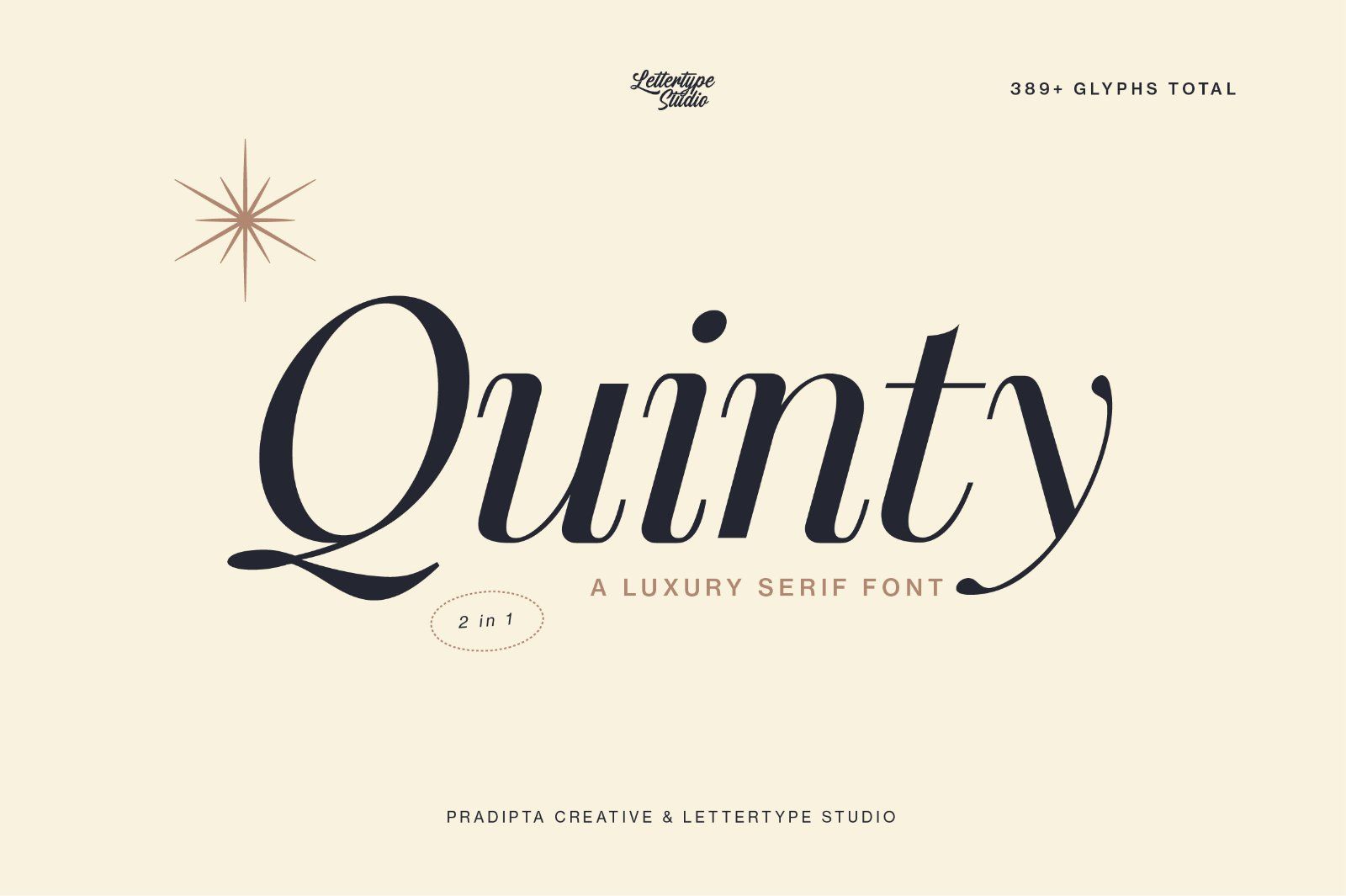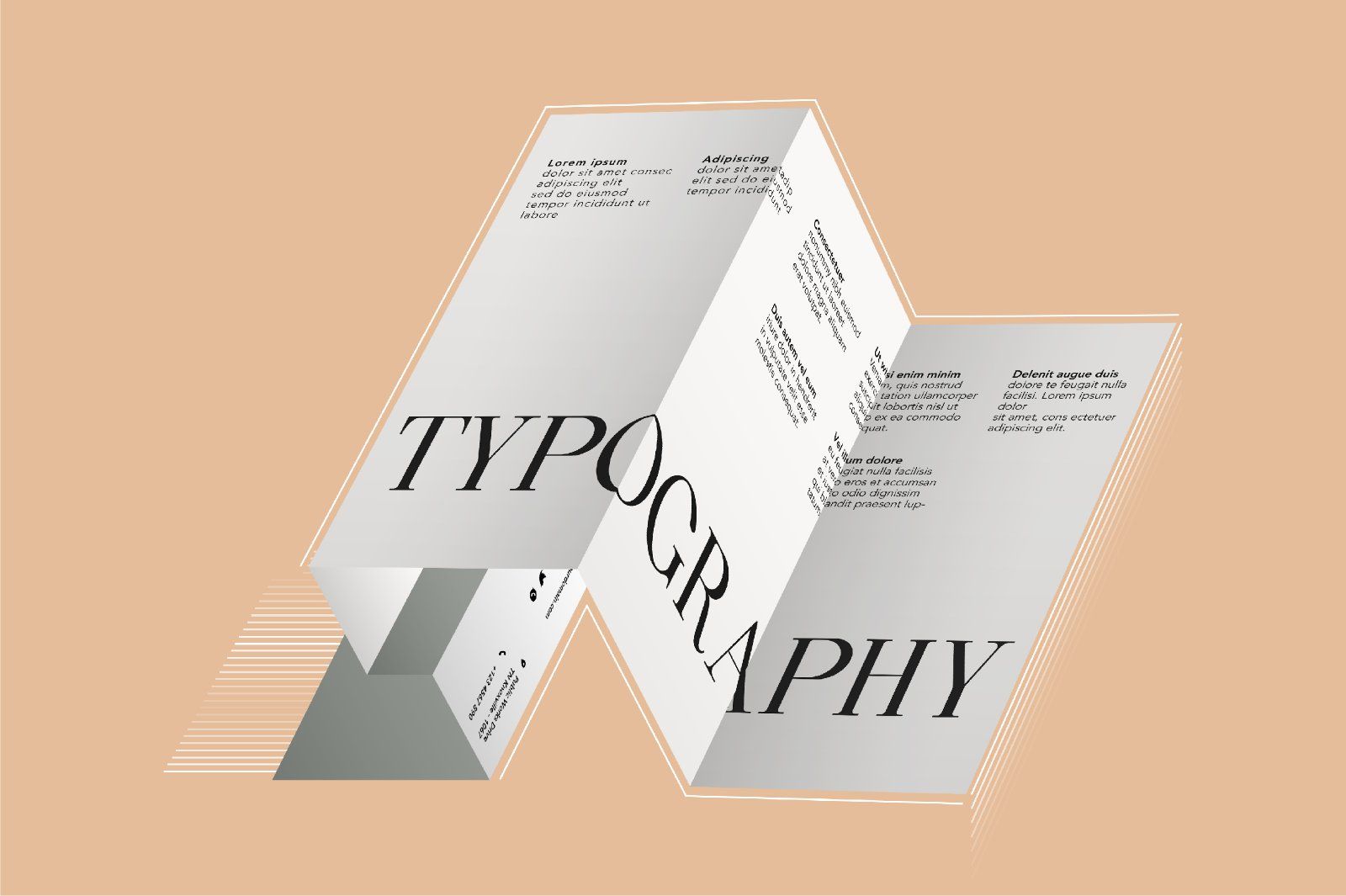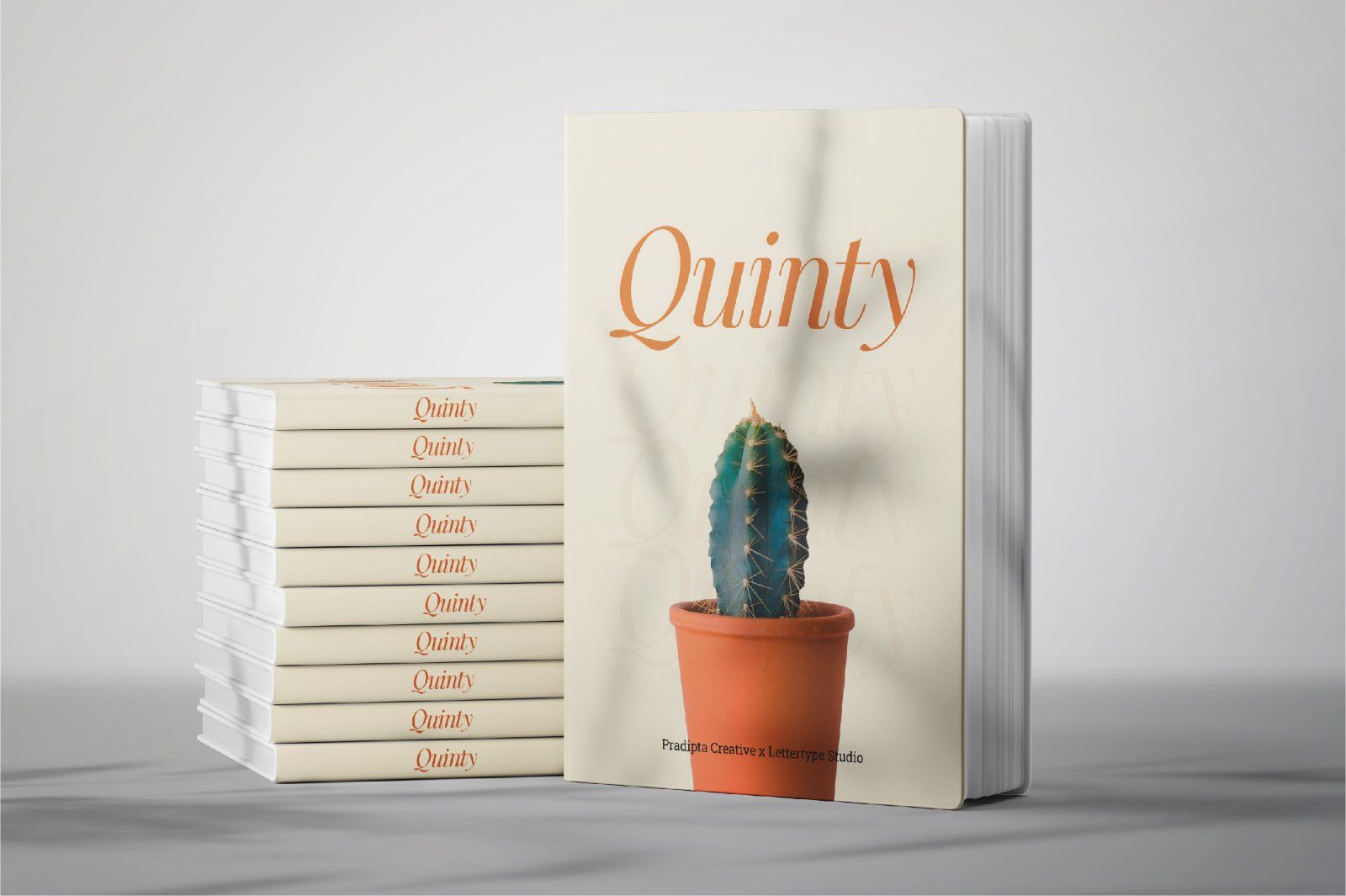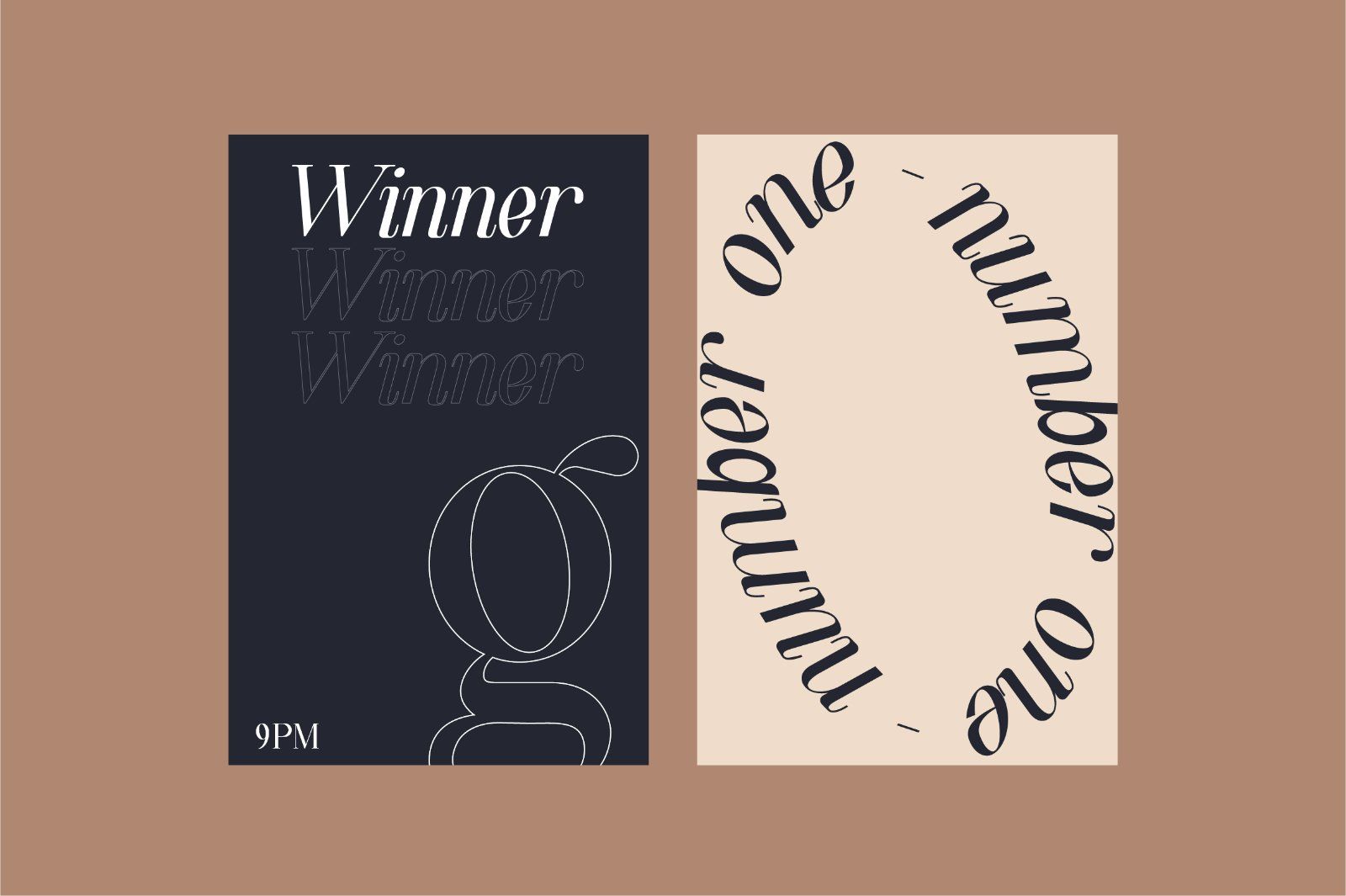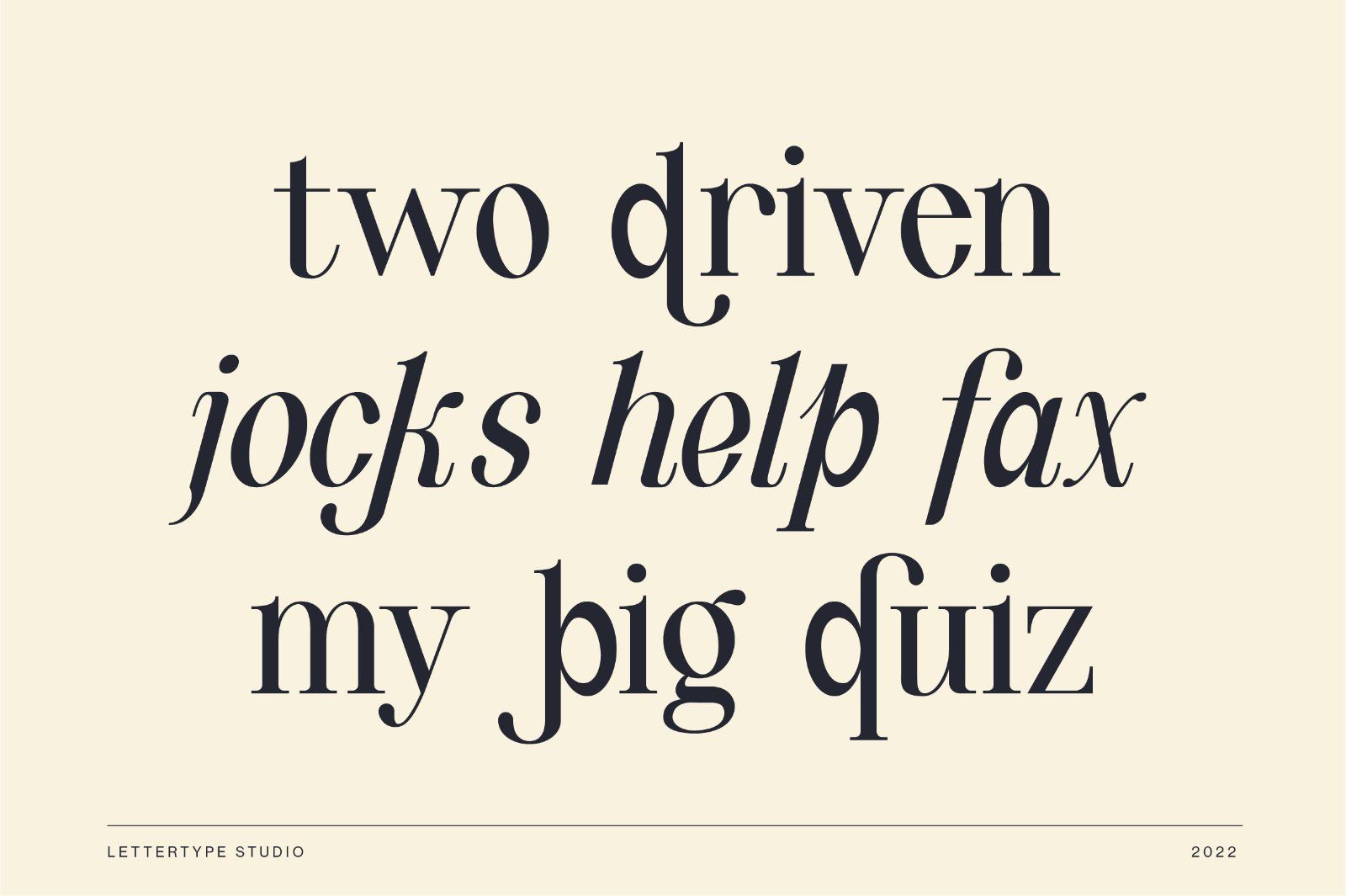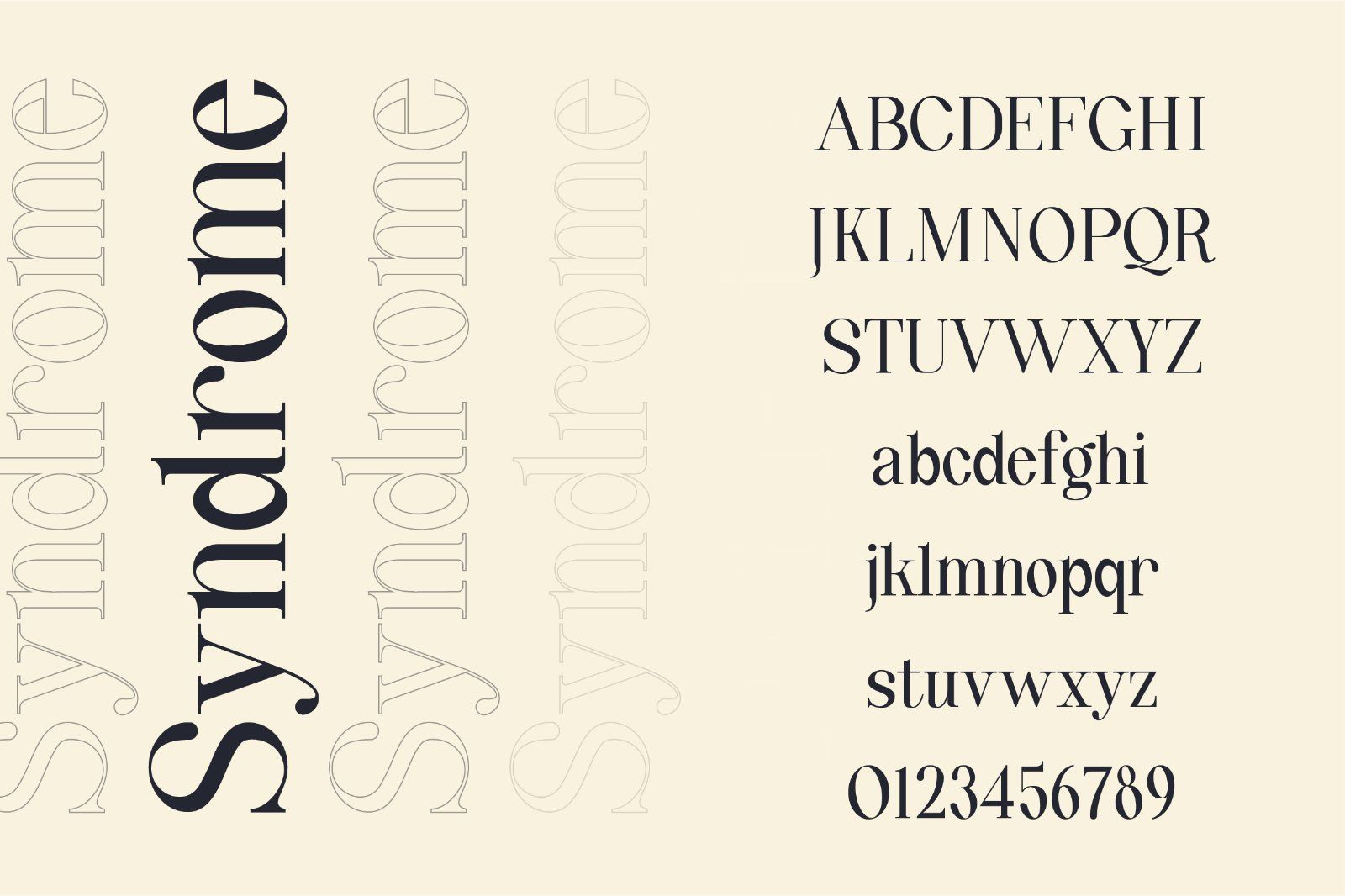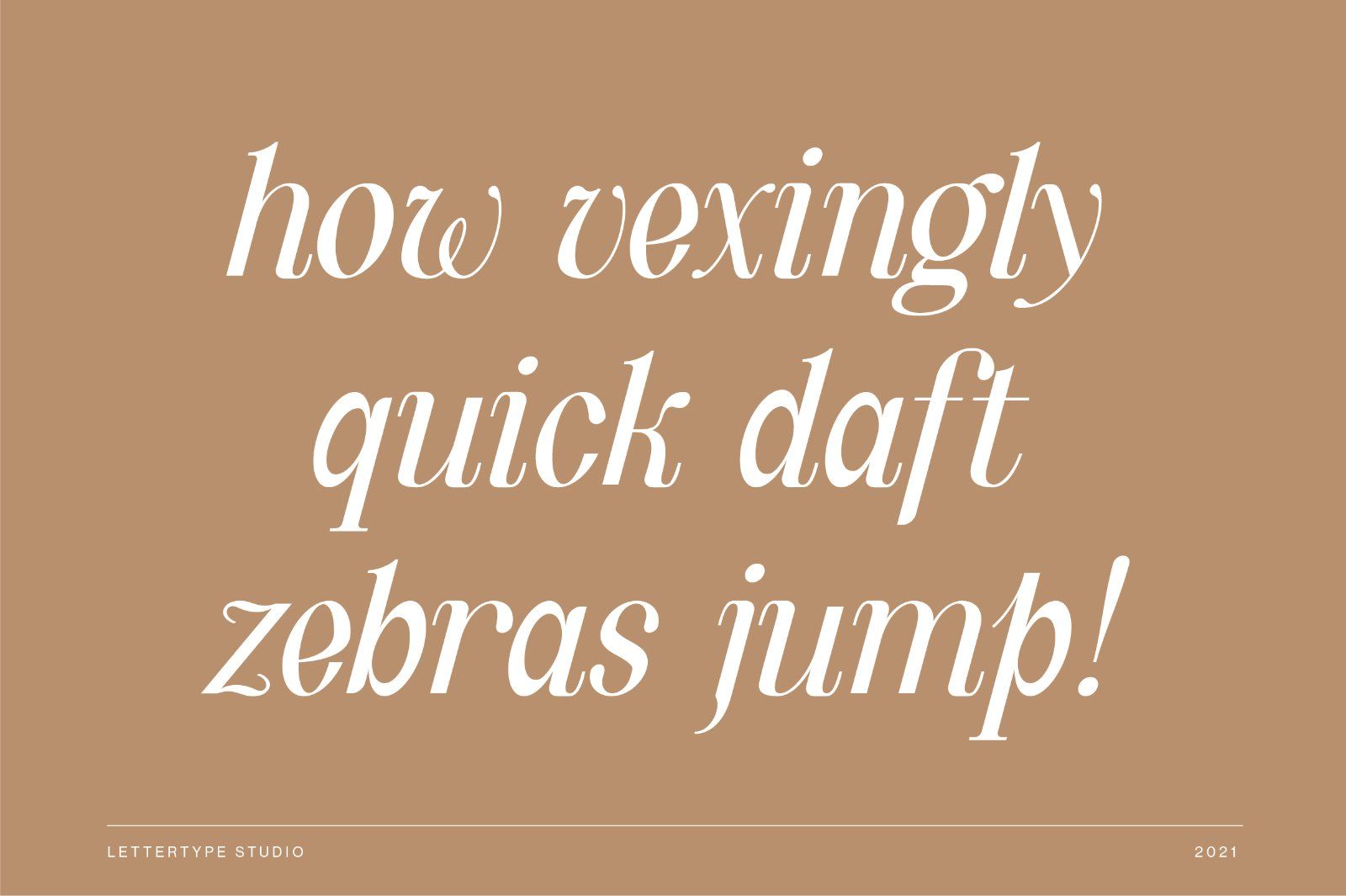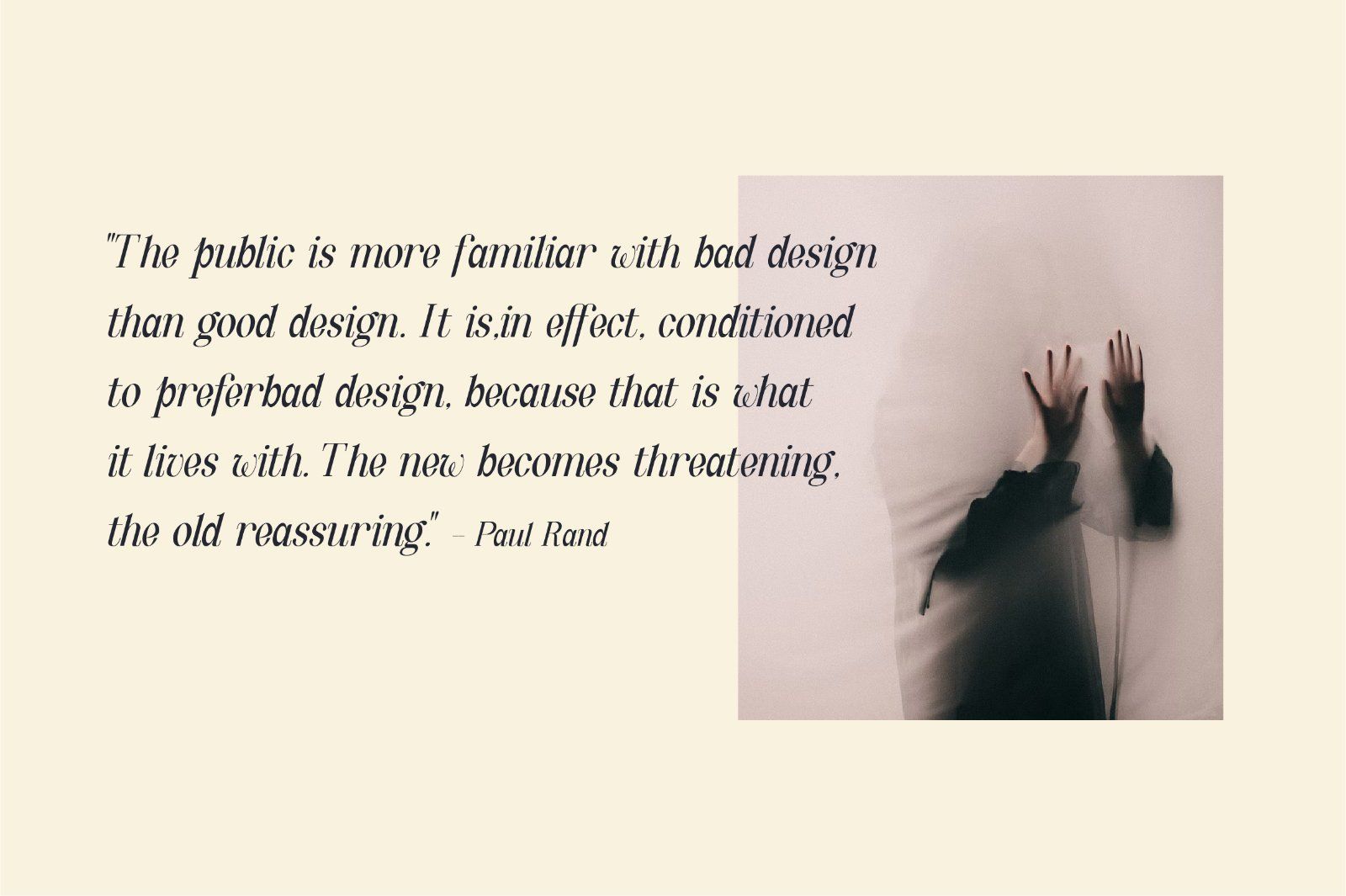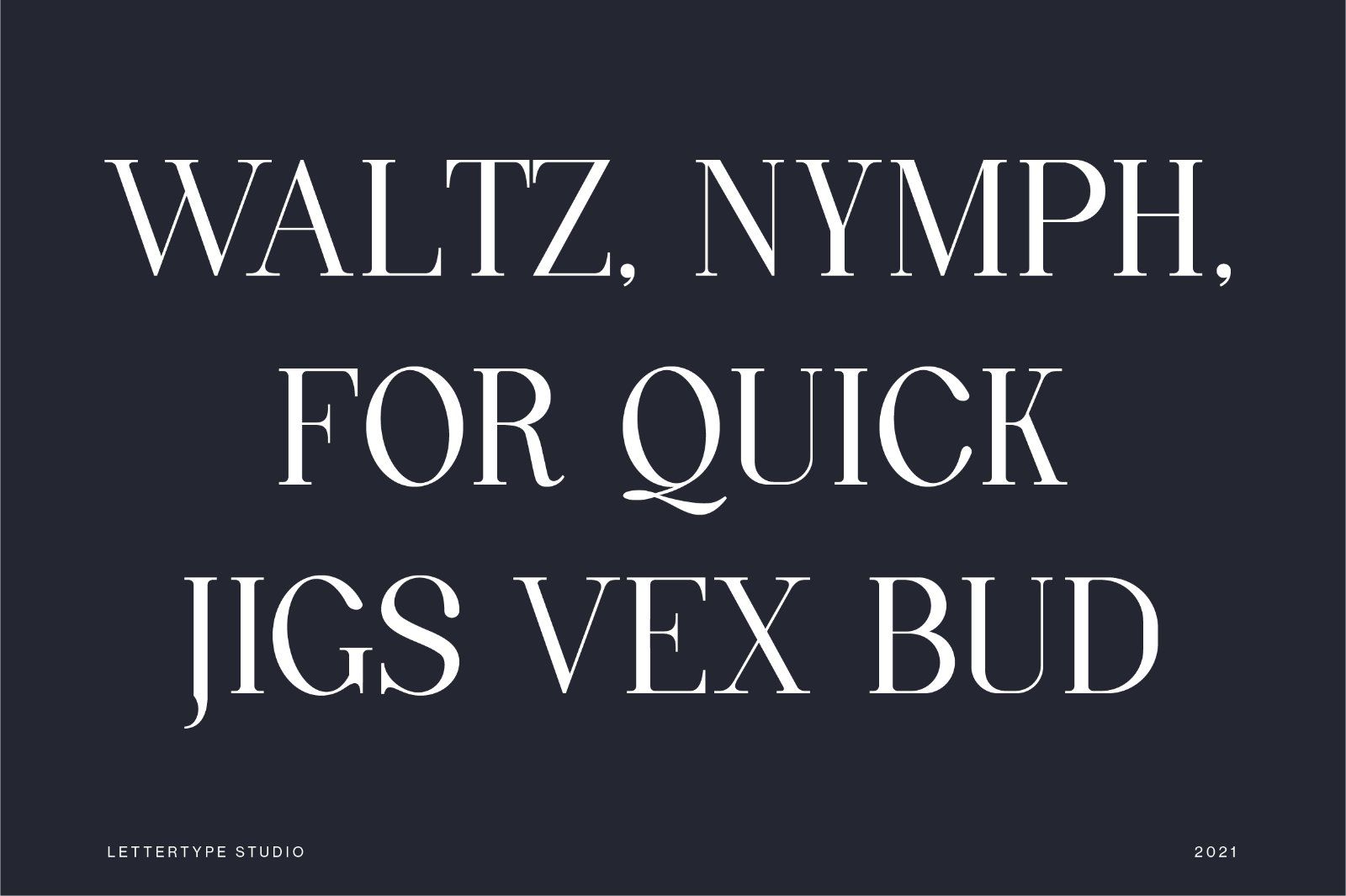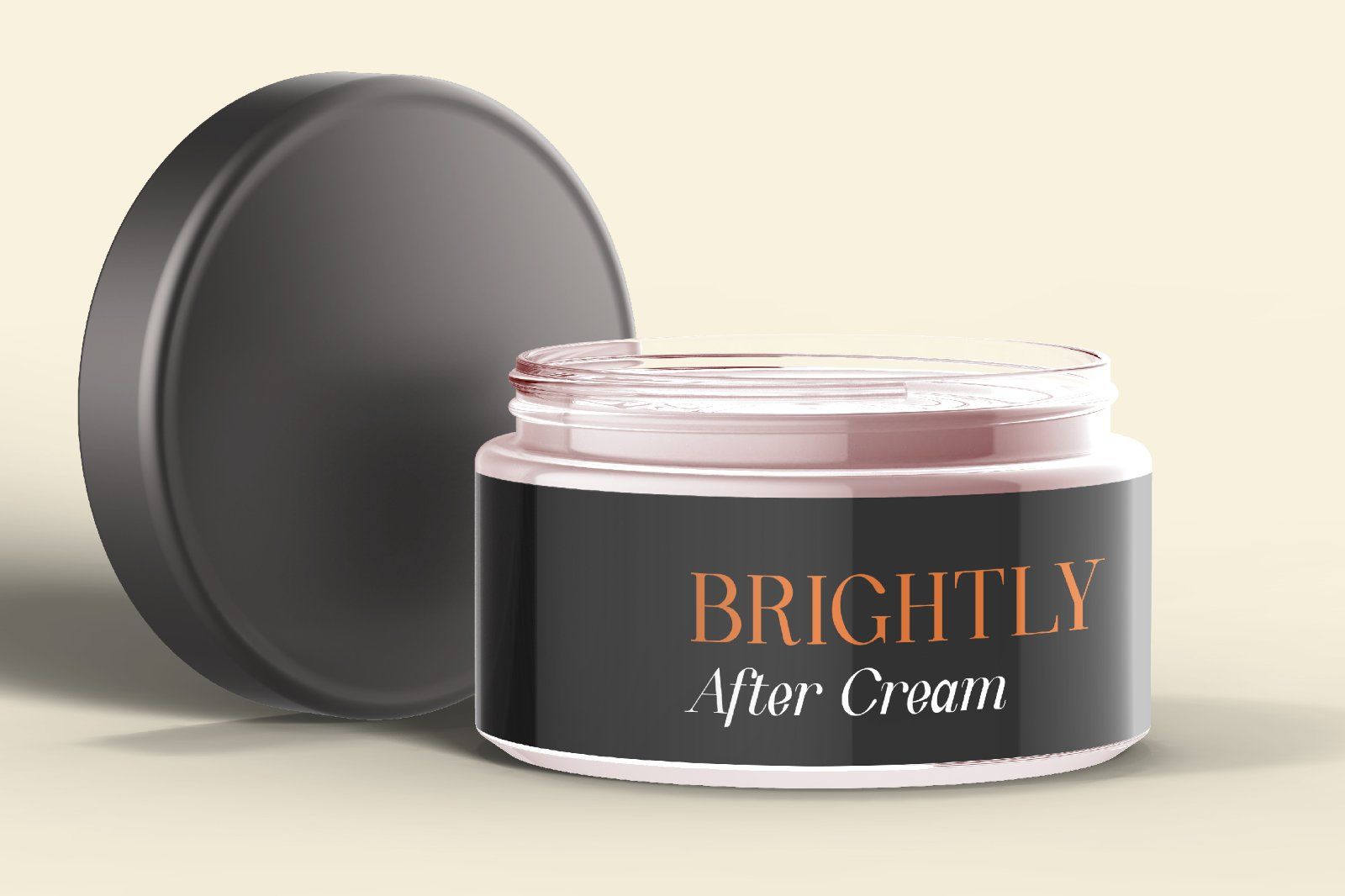
Quinty is a modern font with a classic style and comes with 389 glyphs total.
My inspiration for making the Quinty font was my village because there are so many old houses that contain old and classic elements. Then I tried to put it in my latest artwork to get a classic and modern feel.
This font will be perfect for your logo design, branding, clothing, signage, posters, wedding invitations, cosmetic or fashion and so much more!
Quinty will help your project or your brand to have a unique vintage and classic look.
Quinty Comes With:
• Lowercase, Uppercase, and Ligatures
• Tons of Stylistic Alternates (10 styles)
• Accented Characters (up to 198+ Glyphs)
• Quinty Font Family (Regular & Italic)
• Multiple Languages Supported